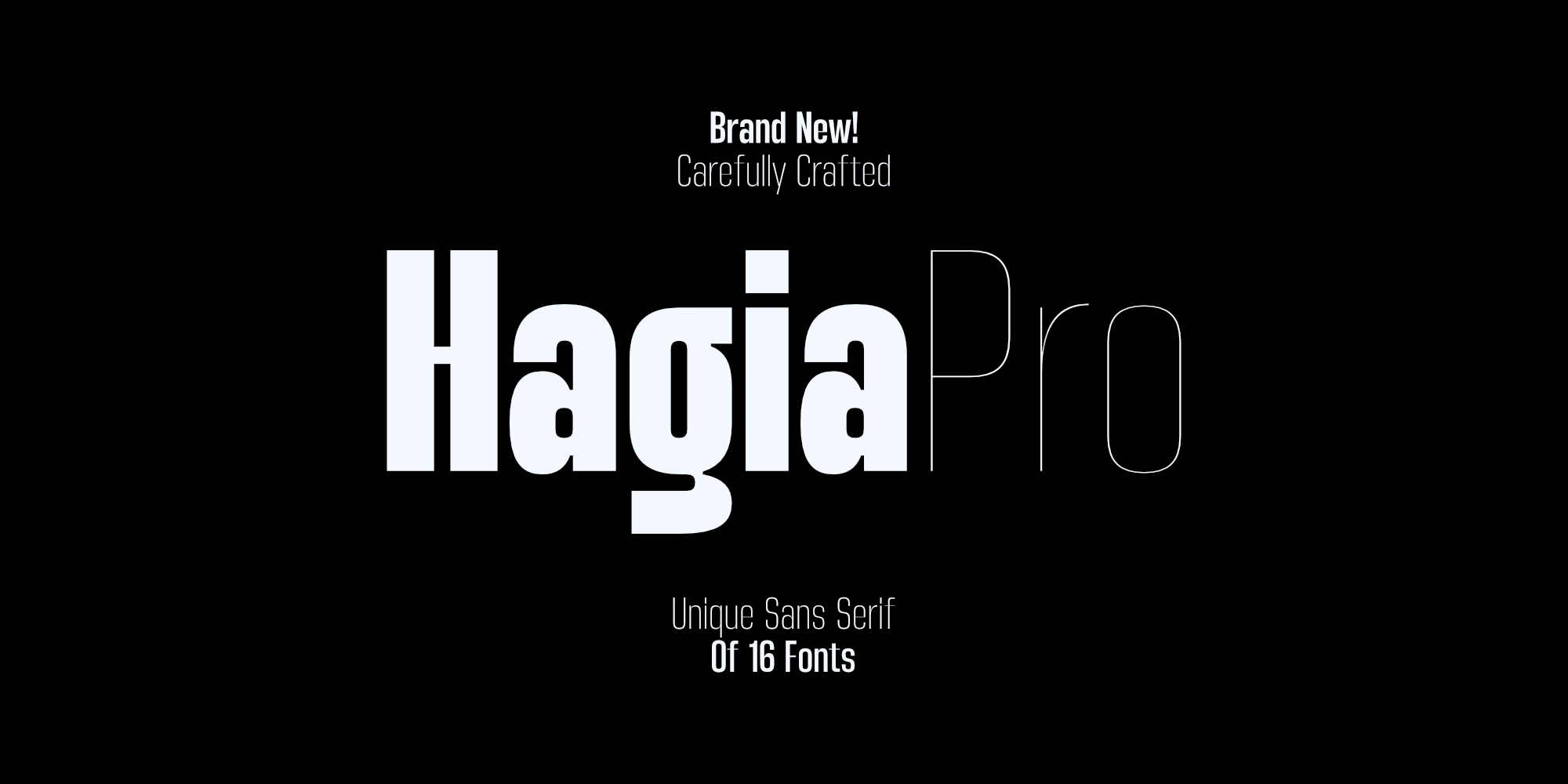
Hagia Pro Font is perfect for religious institutions, Byzantine cultural organizations, sacred architecture projects, spiritual retreat centers, interfaith dialogue materials, ancient history museums, theological publications, ecclesiastical branding, and any project requiring typography with divine reverence and sacred architectural sophistication.
What makes Hagia Pro Font exciting is its sacred grandeur that captures the divine inspiration and architectural magnificence of Byzantine sacred spaces with letterforms that embody the spiritual elevation and timeless wisdom found in ancient religious traditions and monumental sacred architecture. This transcendent typeface reflects the harmonious balance between earthly craftsmanship and divine aspiration with graceful proportions that mirror the mathematical precision and spiritual symbolism of Byzantine domes and sacred geometry. The font's sacred character and architectural sophistication make it perfect for projects celebrating spiritual heritage, interfaith understanding, and the universal human quest for divine connection through sacred spaces.
The Hagia Pro Font family includes multiple weights from light to bold, featuring complete uppercase and lowercase alphabets, numerals, punctuation marks, and sacred design elements. The font maintains consistent divine elegance throughout all weights while ensuring excellent readability for both reverent headlines and contemplative text applications in religious and cultural contexts.
Whether you're designing for religious organizations, creating sacred architecture materials, or developing spiritual branding with Byzantine aesthetics, Hagia Pro Font Free Download delivers unmatched sacred sophistication and divine authority to your projects. This exceptional typeface transforms ordinary text into expressions of spiritual reverence that honor the finest traditions of sacred architecture and religious artistic excellence. The font's divine character makes it ideal for churches, religious institutions, and interfaith organizations. Download this remarkable font today and bring the transcendent elegance of sacred Byzantine heritage to your design projects with authentic spiritual sophistication and divine architectural beauty.